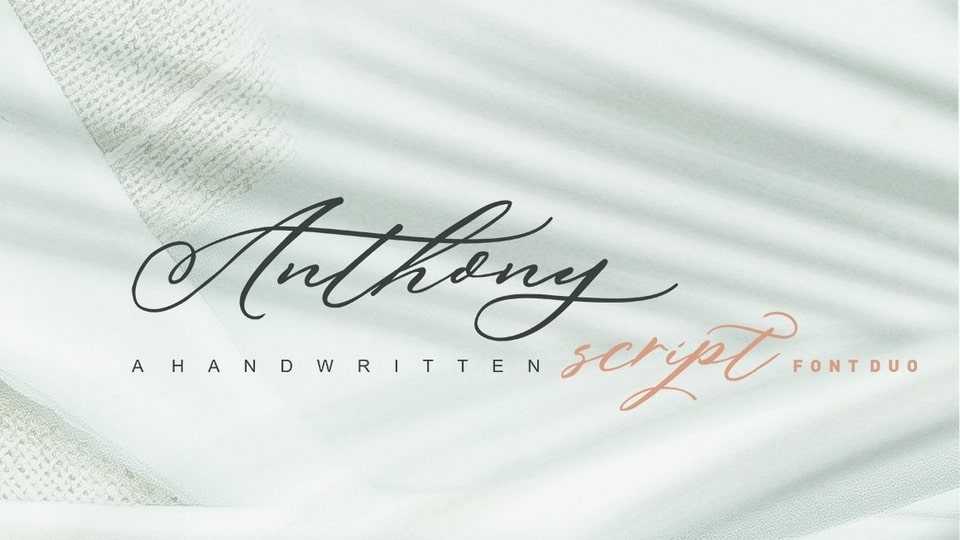
Download Anthony font, is a brush typeface (script and handwritten) with a lot of alternates & ligatures. It looks luxurious and elegant, with a dancing baseline.